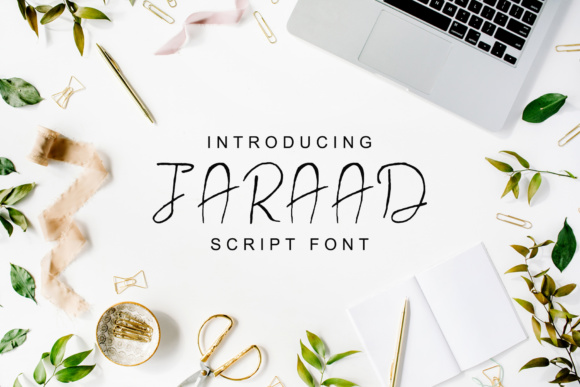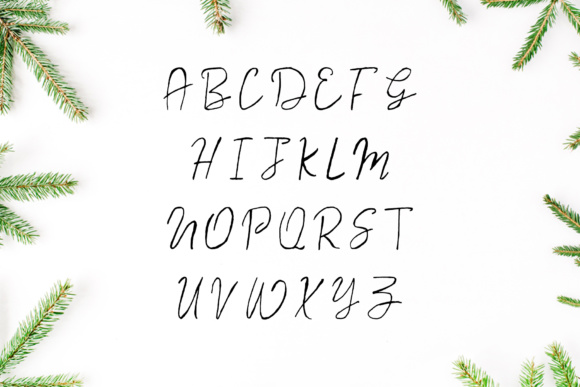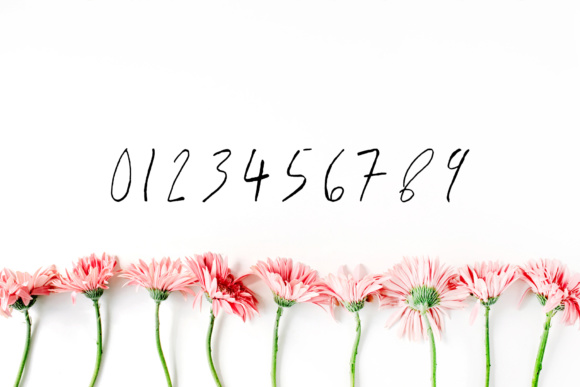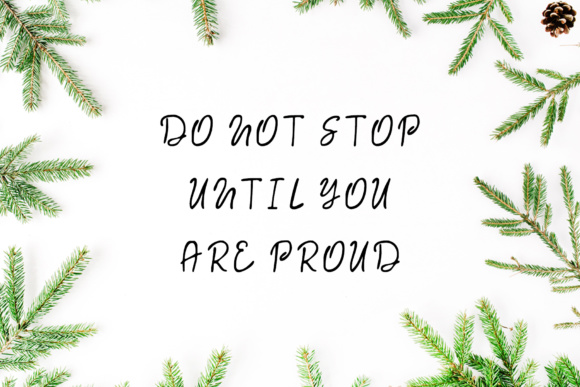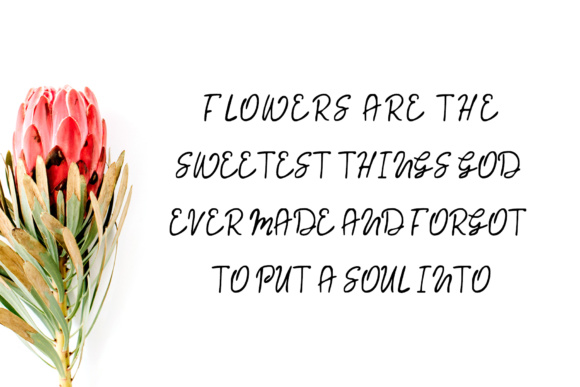
Jaraad Family Font
About Jaraad Family Font
Jaraad Script is a beautiful handwritten font which contains 4 weights. Jaraad is specifically designed for minimal projects. Jaraad looks impressive for branding, websites, clean designs, logos, headlines, banners and much more! Jaraad comes in uppercase style only.